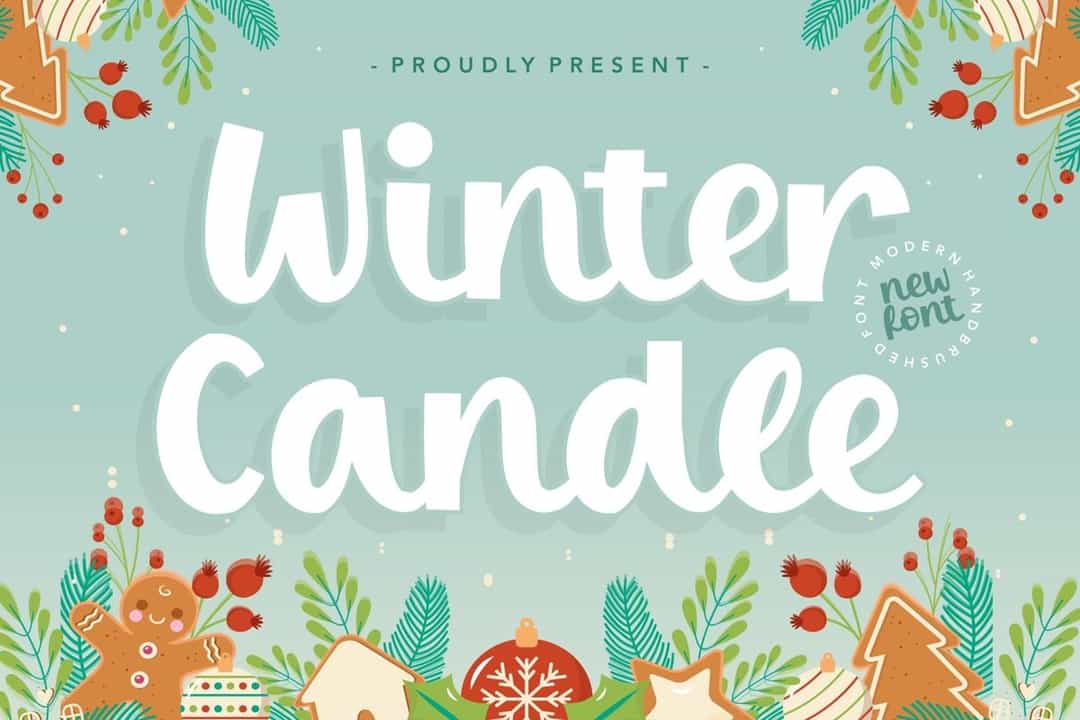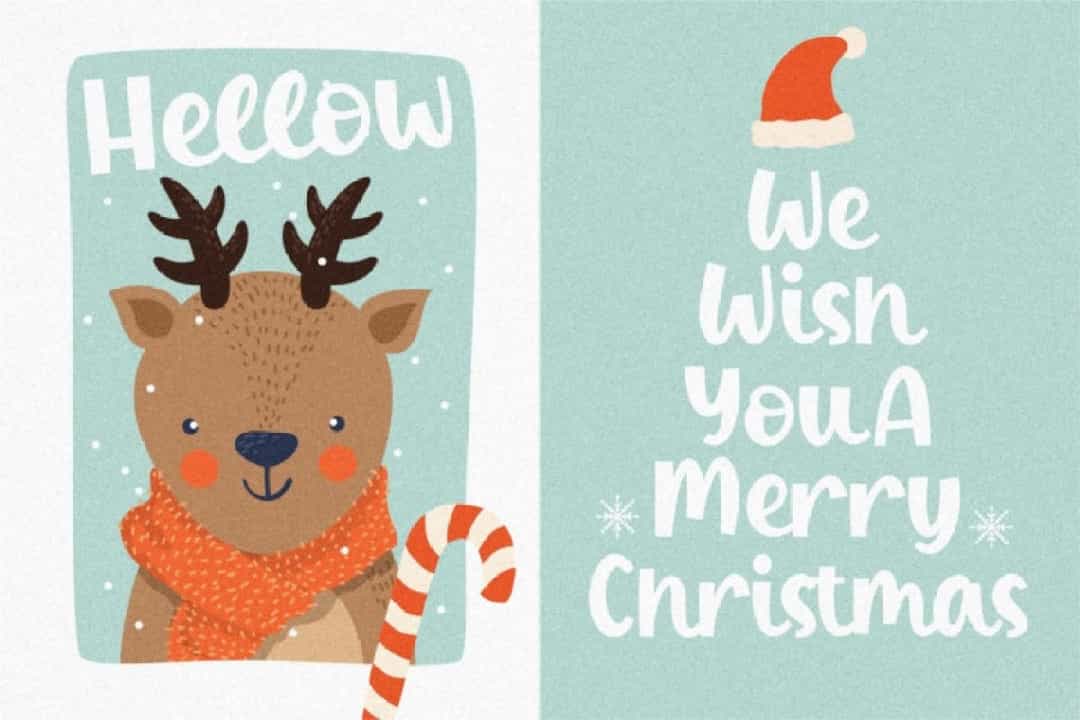
Discover Winter Candle Bold Script Font, part of the Brush Handwritten Script collection—a versatile and unique font perfect for adding a personal touch to your projects. Download it for free and enjoy crafting designs with style, from invitations to social media posts. This font is available exclusively for personal use, giving you the freedom to create without limits. Unlock your creativity with Winter Candle Bold Script Font today!
This font is a modern hand brushed one with the name Winter Candle. Best suited for product packaging branding projects magazines weddings social media or when want to place text over imagery Winter Candle is suitable.